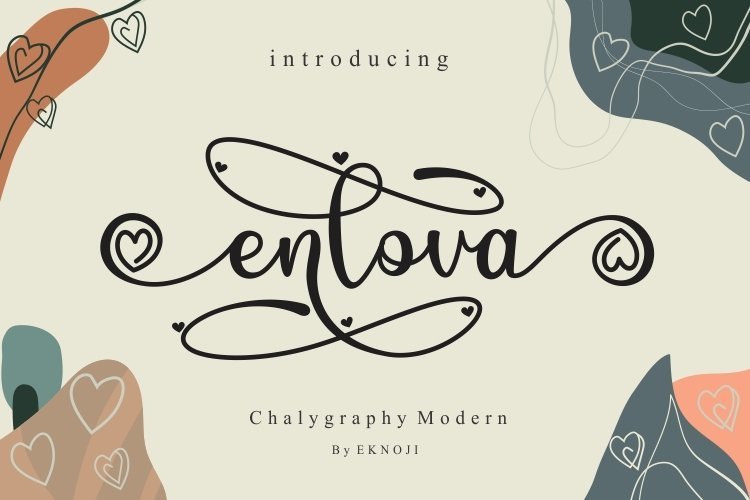
Enlova Modern Calligraphy Script Font
Enlova Script Font is a modern calligraphy typeface. This font will looks awesome and amazing in many way to your latest project. Enlova is perfect for many different project such as logos & branding, invitation, stationery, wedding designs, social media posts, advertisements, product packaging, product designs, label, photography, watermark, special events or anything.